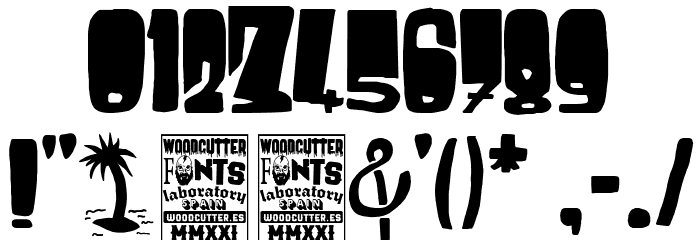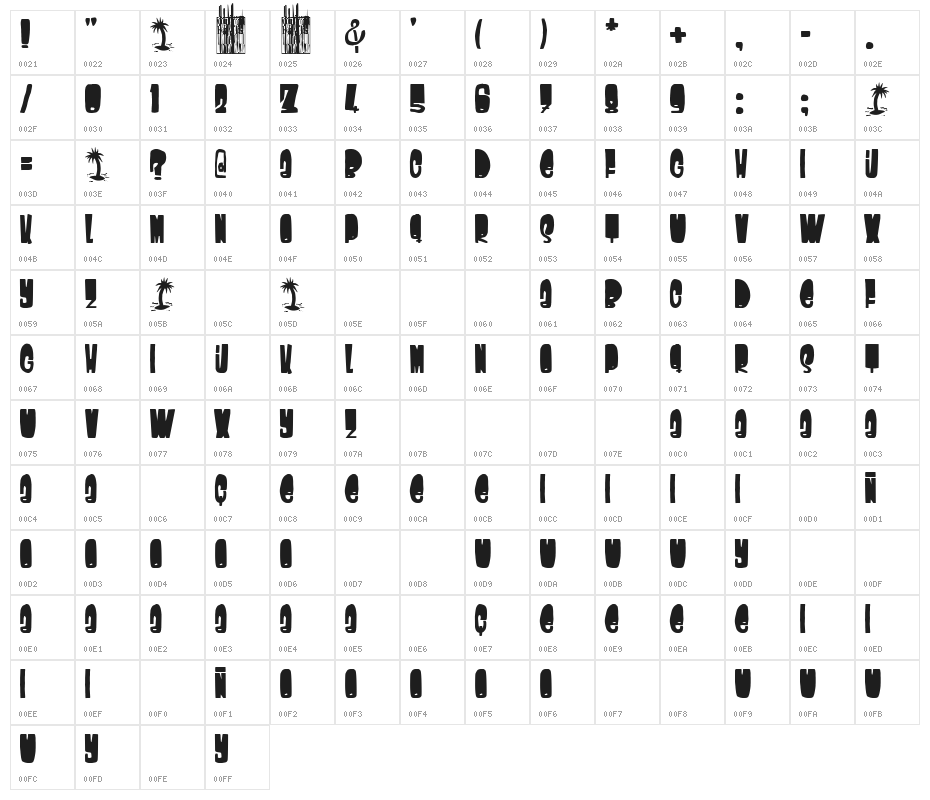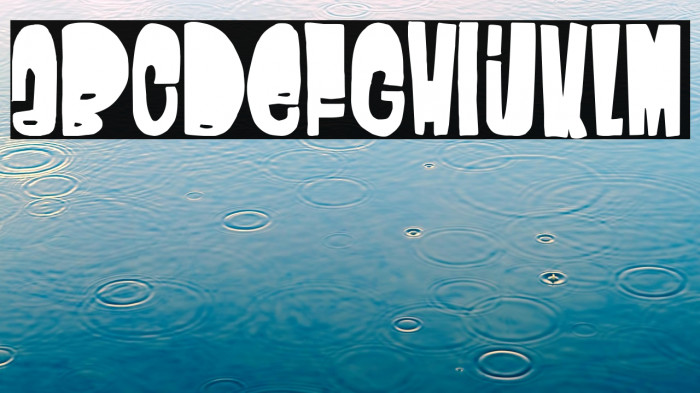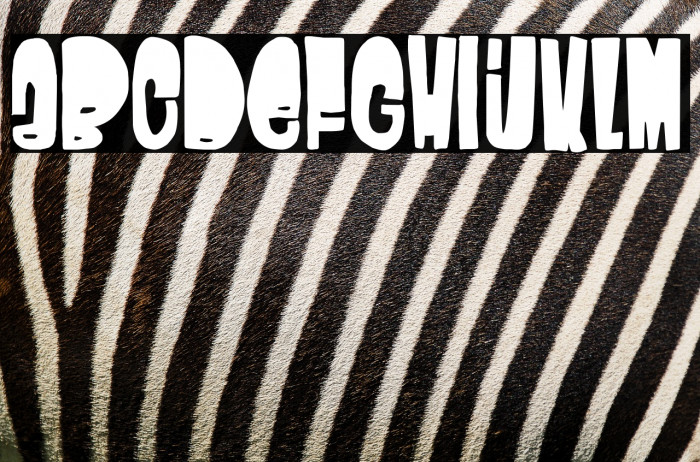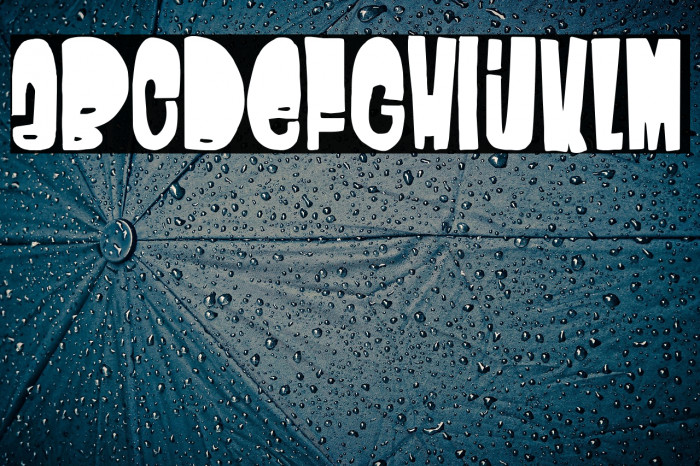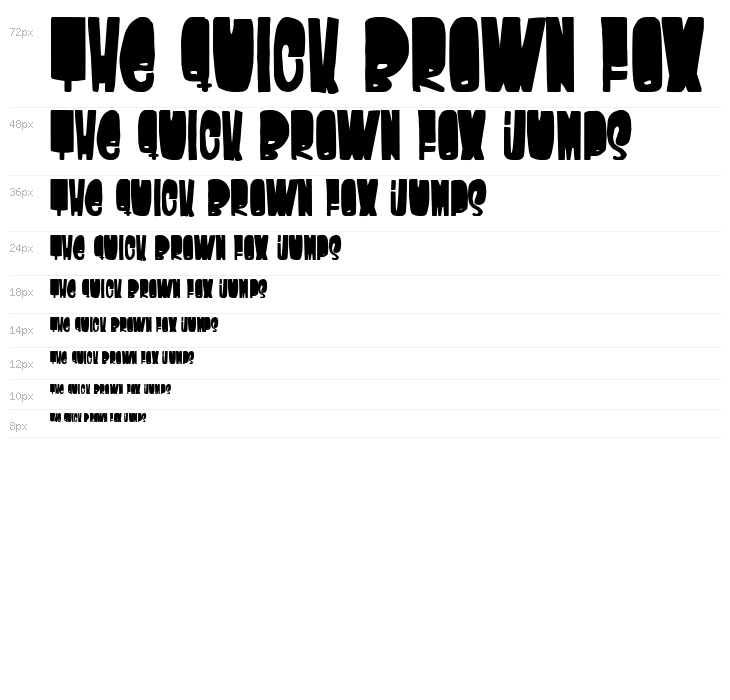
Calypso Soundsystem Font
Calypso Soundsystem Description
This font features a bold and playful design with exaggerated, rounded forms and a slightly irregular baseline, giving it a whimsical and lively appearance. The characters are thick and substantial, creating a strong visual impact. The unique style is reminiscent of hand-drawn or cartoon-like lettering, making it stand out in any design. The font includes both uppercase and lowercase letters, numbers, and a selection of special characters, all maintaining the same bold and quirky aesthetic. Its distinctiveness makes it ideal for projects that require a fun and engaging typeface.
| Overall Style | Playful, Whimsical, Cartoon-like |
| Proposed Projects | Ideal for children's books, playful branding, posters, and event invitations. |